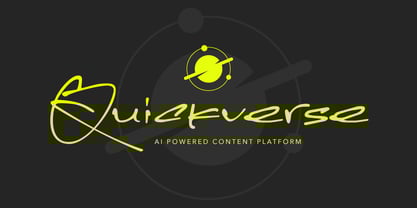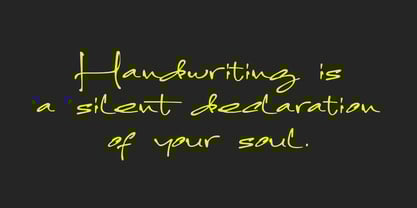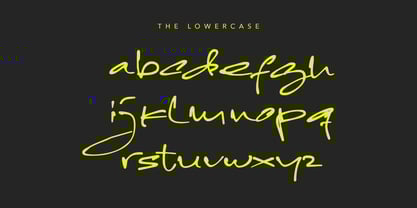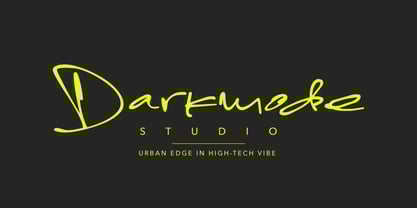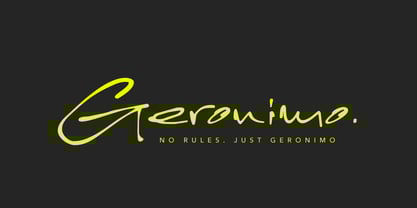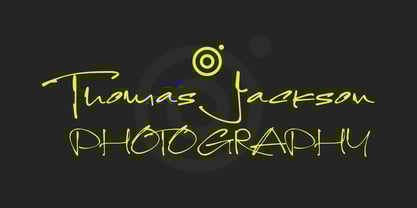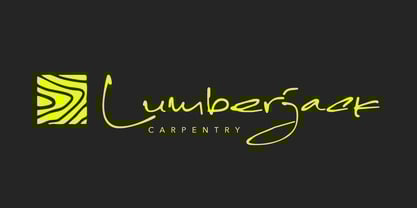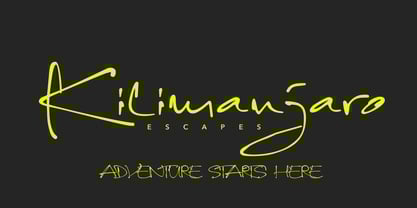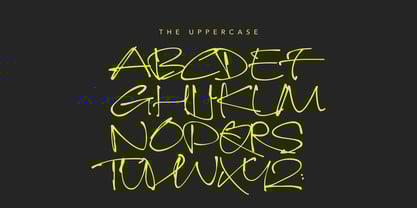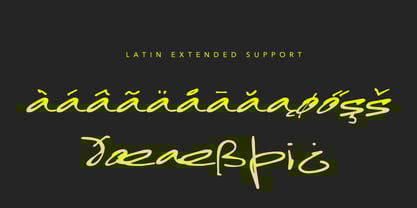
Funkysnap
by MMMA Creative
Funkysnap is that go to font when you wanna keep it real. It’s got this super chill, hand-drawn look like someone just sketched it out with love and good vibes. The letters aren’t all uptight and perfect, but that’s the charm. They’ve got flow, personality, and a whole lotta soul.
Each letter’s doin’ its own thing, but they still click together like besties. Funky but still clean, easy to read, and just straight-up fun. Perfect for when you're makin’ posters, invites, logos, socials, anything that needs that artsy, laid-back energy.
It’s got that cool mix of stylish and down to earth, so your design pops without lookin’ try hard. Wanna add some warmth and character to your work? Funkysnap’s got you covered